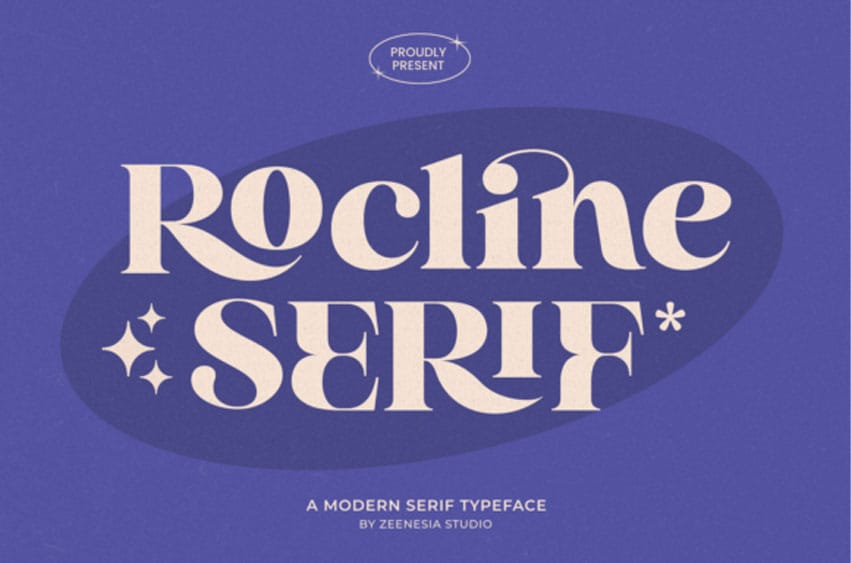
Rocline Font is an elegant serif font, reimagines the charm of retro styles and molds it into a dazzling trendsetter for present-day design ventures. With an infinite scope of applications, Rocline doesn’t just dominate large-format designs—it rules the world of advertising, branding, logo crafting, packaging, and editorial design.
Its appeal is amplified by a multitude of alternate variants and naturally flowing ligatures, imparting a classy and beautiful touch to everything it graces. Rocline’s construction harnesses the power of advanced OpenType features to ensure perfection in your projects. Plus, complete peace of mind is guaranteed thanks to the PUA encoding—it puts all the fabulous glyphs and ligatures at your fingertips without a hitch!